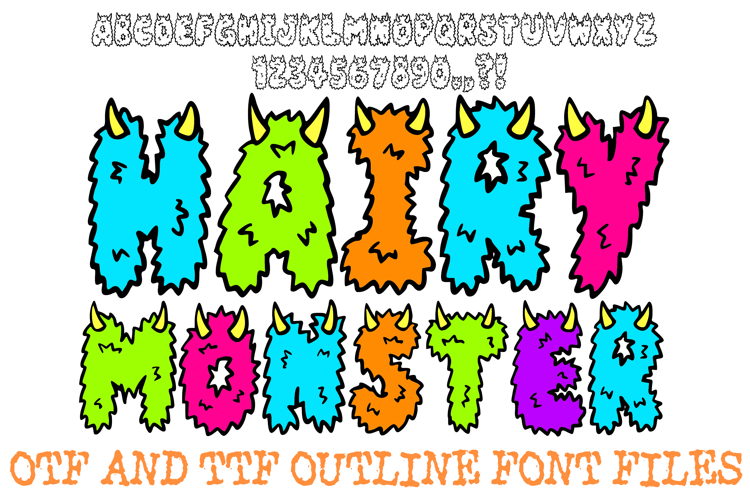
Hairy Monster Alphabet Lettering Font Furry Horns ABC OTF
Bring a delightfully fun, wild texture to your creative projects with Hairy Monster Font, a hand-drawn display font bursting with personality! Featuring furry, shaggy letterforms topped with cute little horns, this font is perfect for adding a touch of playful horror and whimsical charm to any design.
Whether you are designing spooky Halloween apparel, kids' party invitations, monster-themed birthday graphics, sticker packs, or custom craft projects, Hairy Monster Font brings instant character to your text. Created as a clean vector font, it renders crisp and clear for both digital displays and physical cut/print creations.